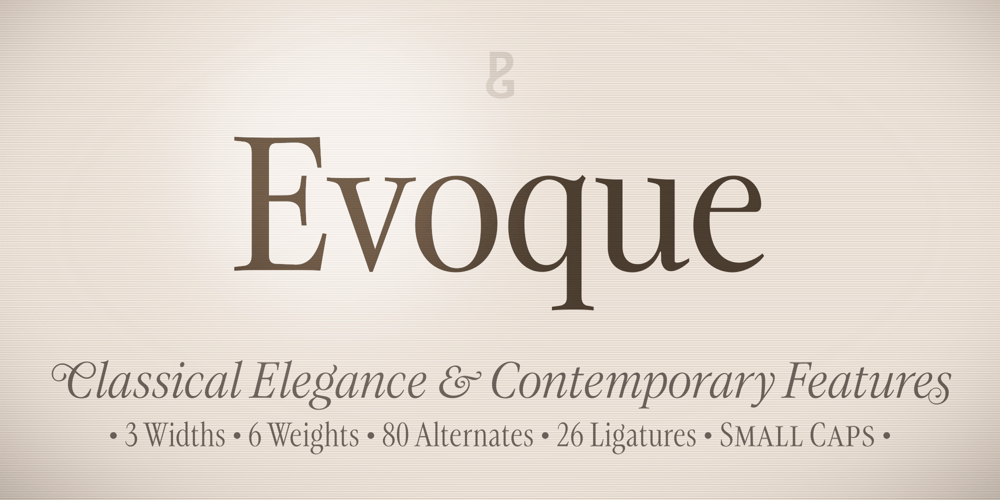
Evoque
Evoque font
Evoque Font Family was designed by Paulo Goode and published by Monotype. Evoque contains 36 styles and family package options. Evoque is a humanist serif type family designed for both text and display purposes. Its appearance is crisp and modern while echoing a classical Garamond heritage. The inspiration for Evoque came after reminiscing over Apple’s advertising of the eighties and nineties that utilised incredibly tightly-spaced headlines set in Apple Garamond. I wanted to create a typeface that evoked nostalgia of those times and that distinctive typographic style. A number of swash alternates and discretionary ligatures enhance Evoque, giving you the opportunity to add more flair and personality to your title and branding designs. Simply activate Stylistic Sets to start adding these flourishes to your typography.Other useful features include Small Caps at the click of a button, and Old Style Figures are an option to the default proportional figure style.There are 36 fonts altogether, with 6 weights in roman and italic from Thin to Heavy weights across Condensed, Narrow, and Regular widths. Evoque has an extensive character set (900+ glyphs) that covers every Latin European language.Please also take a look at Evoque Text which is specifically designed for the publishing sector.Key features: 6 weights in both roman and italic 3 widths – Regular, Narrow, Condensed 80 Alternates 26 Ligatures Small Caps Full European character set (Latin only) 900+ glyphs per font.